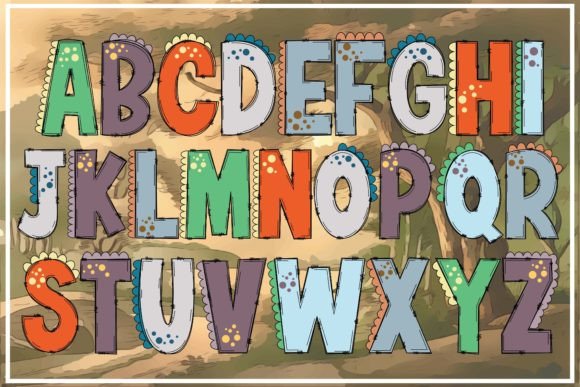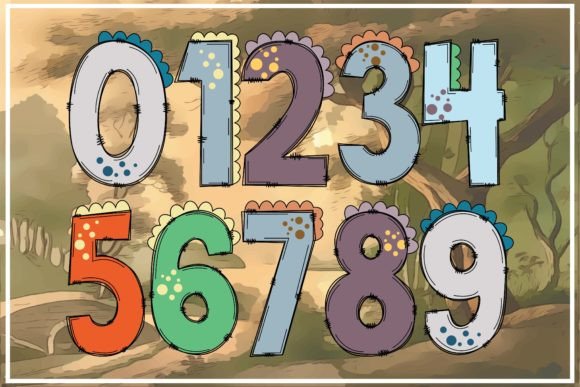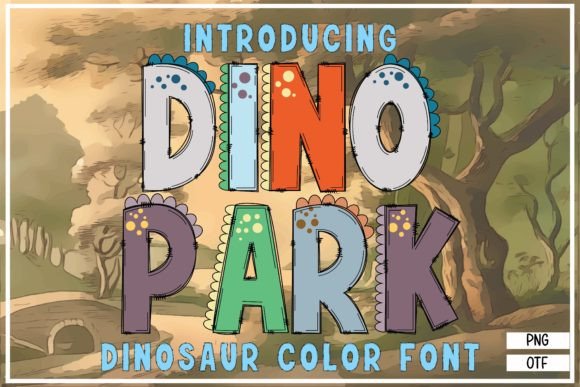
Dino Park Font: The Ultimate Design Companion for Kids and Family Projects
Are you a designer, crafter, or DIY enthusiast looking for a fun and playful font to add a touch of excitement to your projects? Look no further than the Dino Park Font! This adorable dinosaur-themed color font is perfect for designing a wide range of products, from T-shirts and tote bags to wedding invitations and stickers. In this article, we’ll dive into the features and benefits of the Dino Park Font, and explore how you can use it to take your designs to the next level.
What is Dino Park Font?
Dino Park Font is a unique and colorful font designed specifically for crafters, designers, and DIY enthusiasts. This Opentype-SVG font is compatible with popular design software like PhotoShop, Illustrator, Silhouette, and Inkscape, making it easy to incorporate into your workflow. The font features cute and playful dinosaur designs, perfect for kids’ and teens’ projects, as well as family designs.
Key Features of Dino Park Font
- Color Font: Dino Park Font is a color font, which means it comes with built-in color glyphs that can be used to create stunning, multi-colored designs.
- Backward Compatibility: The font includes two versions of each glyph: a colorful version and a black shape version, ensuring compatibility with older software and operating systems.
- Experiment with Color: Take advantage of the font’s color glyphs to create bold and eye-catching designs.
- Mix and Match: Combine Dino Park Font with other fonts and design elements to create unique and interesting visual effects.
- Use in Kids’ and Family Projects: The font’s playful dinosaur designs make it perfect for kids’ and family projects, such as birthday party invitations, stickers, and T-shirts.
Dino Park Font is a fun and playful font that’s perfect for designers, crafters, and DIY enthusiasts looking to add a touch of excitement to their projects. With its unique color glyphs and compatibility with popular design software, this font is sure to become a staple in your design library. Whether you’re working on kids’ and family projects, or just looking for a fun and creative way to express yourself, Dino Park Font is the ultimate design companion.